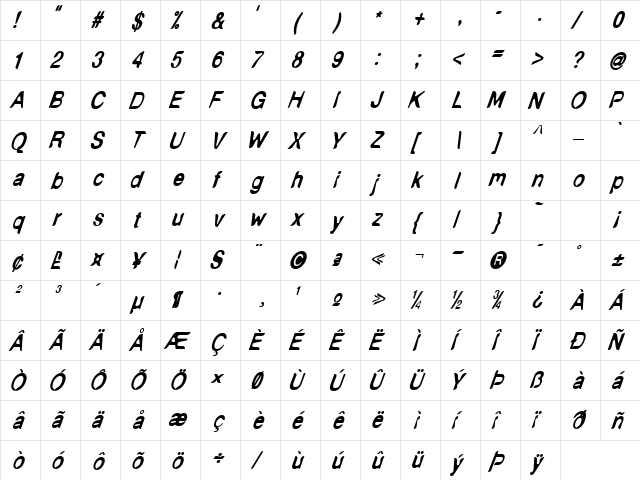
NudE Rubenesque Italic Regular
Design Context for NudE Rubenesque Italic Typeface
NudE Rubenesque Italic takes a measured approach to typography — its balanced proportions and neutral character make it a reliable workhorse for both digital and print work. Its italic angle brings a sense of urgency and motion to the letterforms.
Pro Tip: Try NudE Rubenesque Italic for annotation and caption copy alongside an upright companion — the contrast in angle creates a dynamic but ordered typographic system.